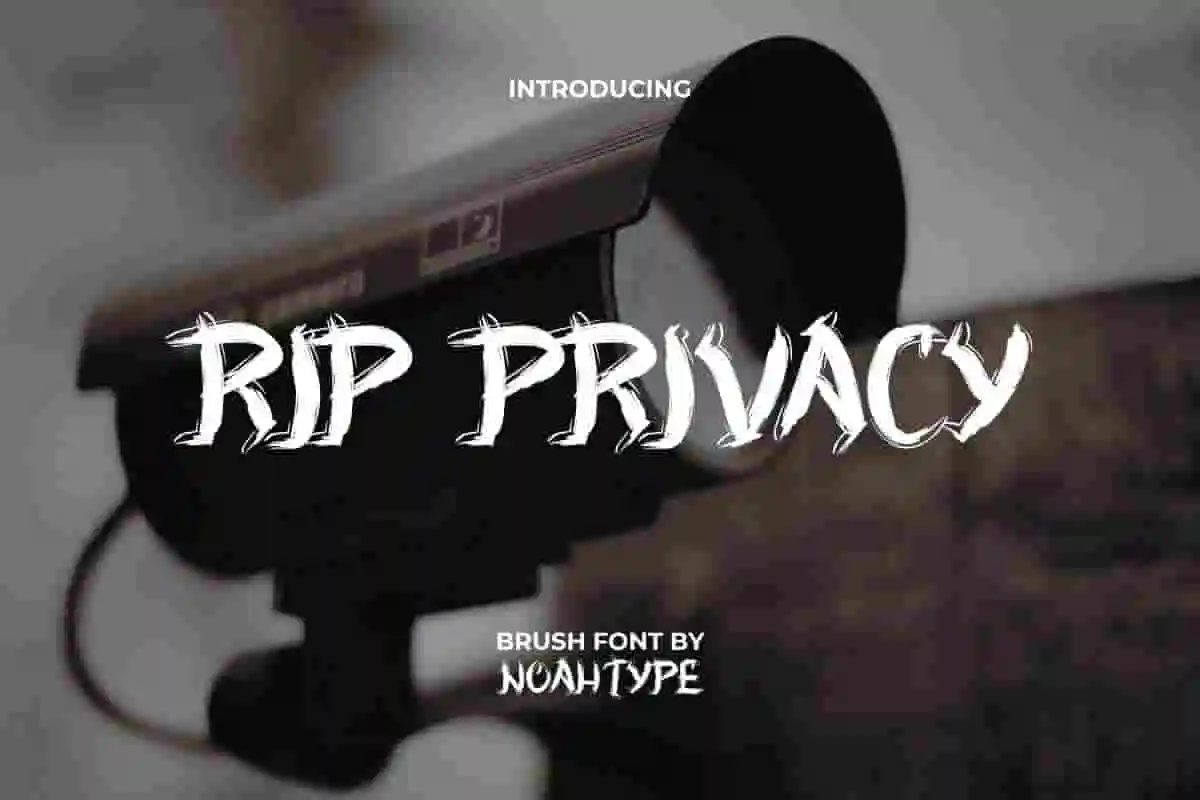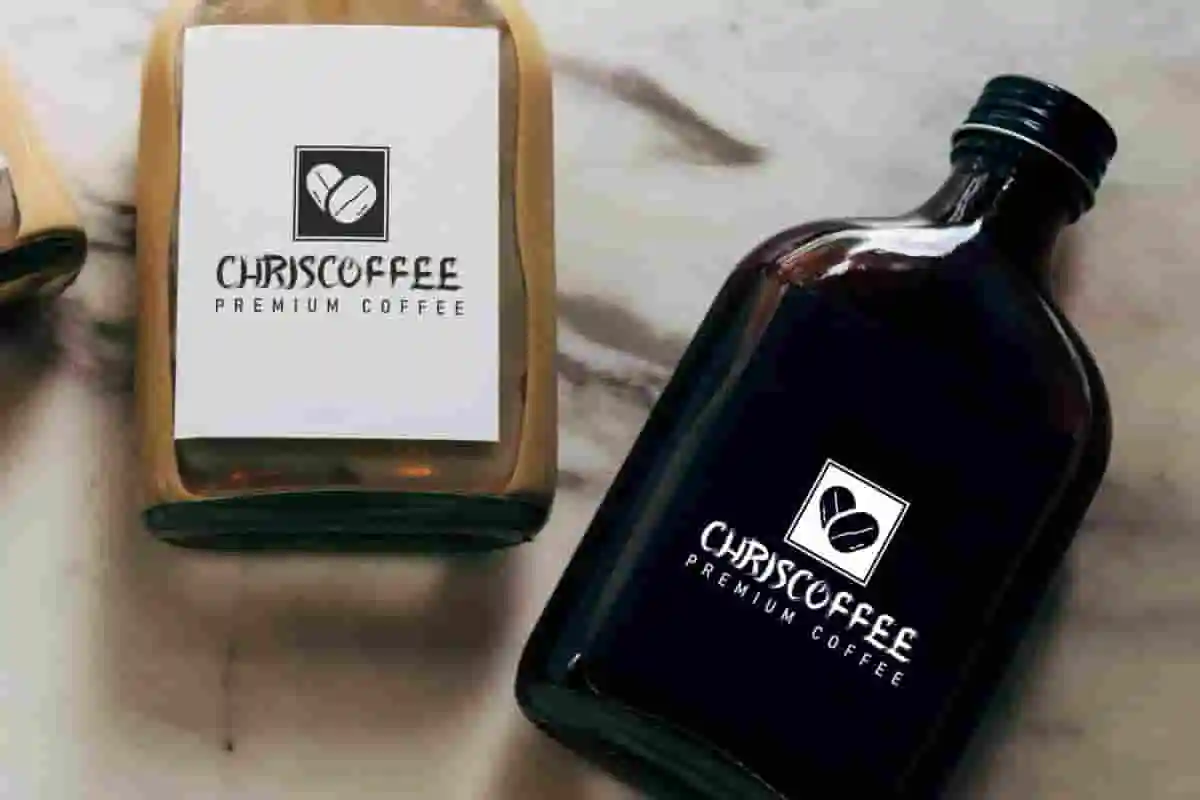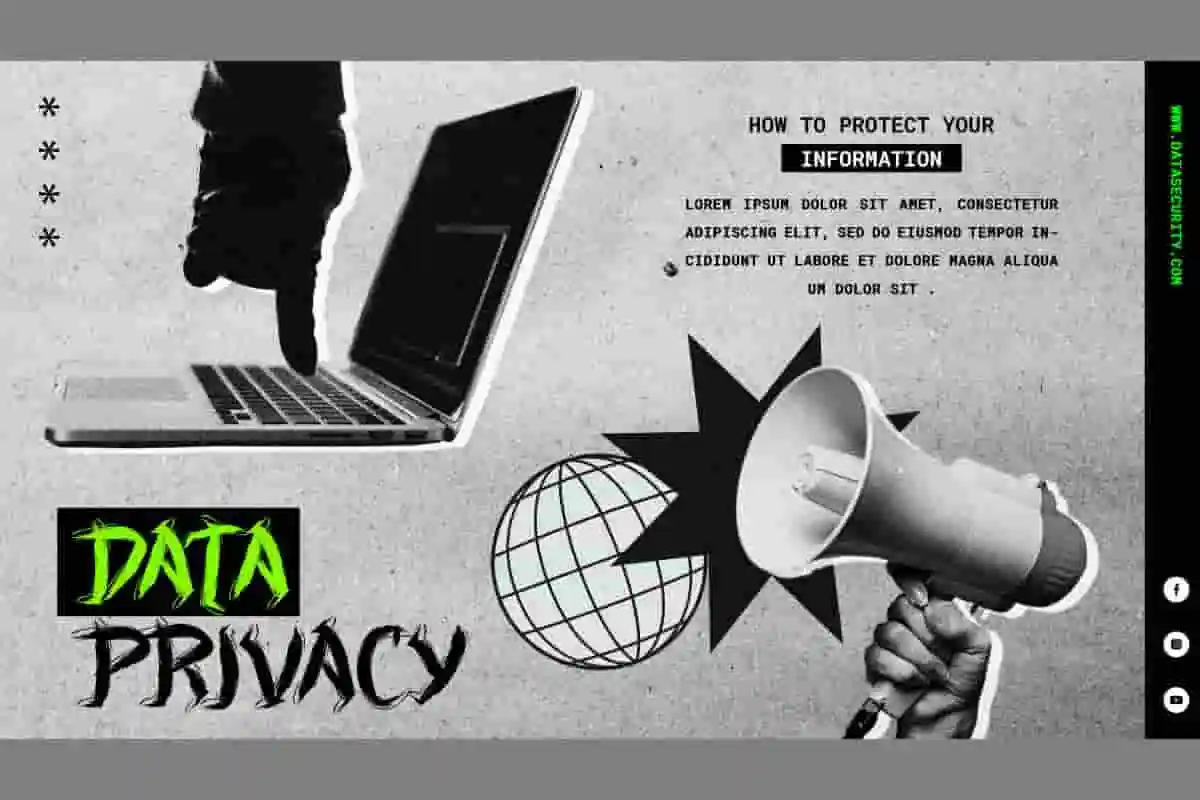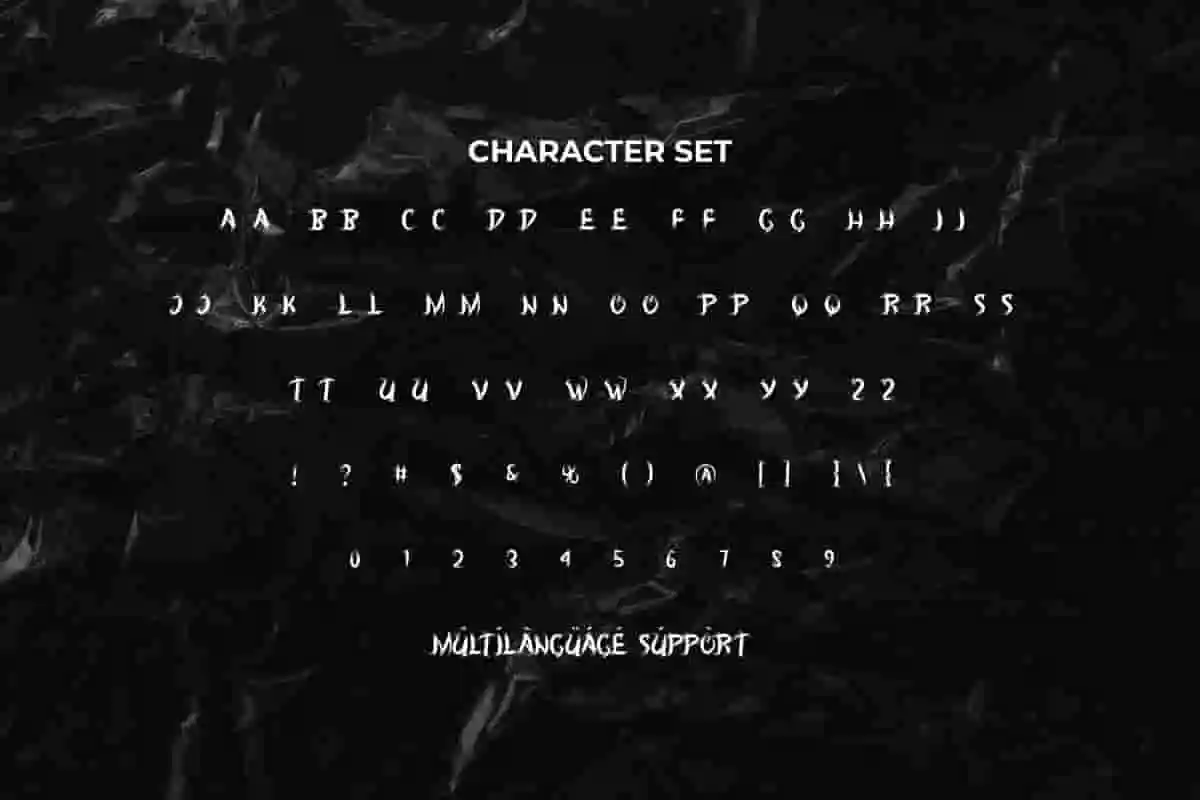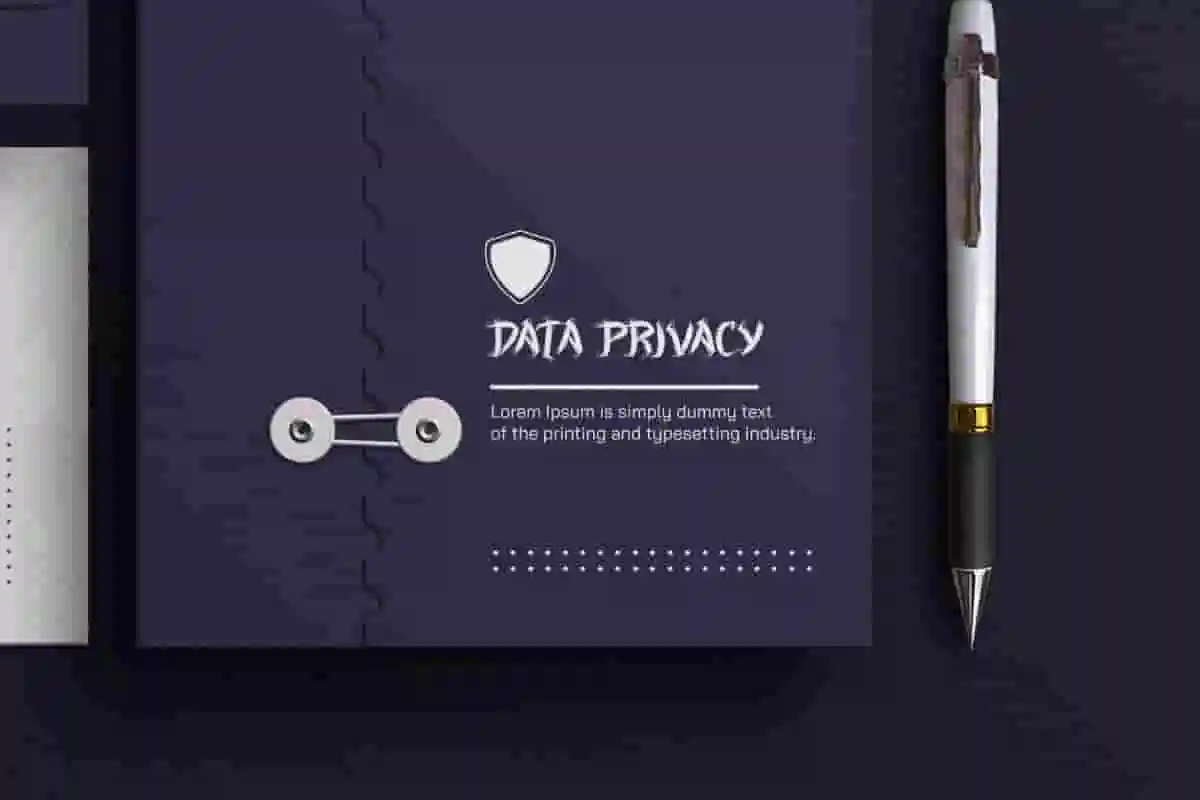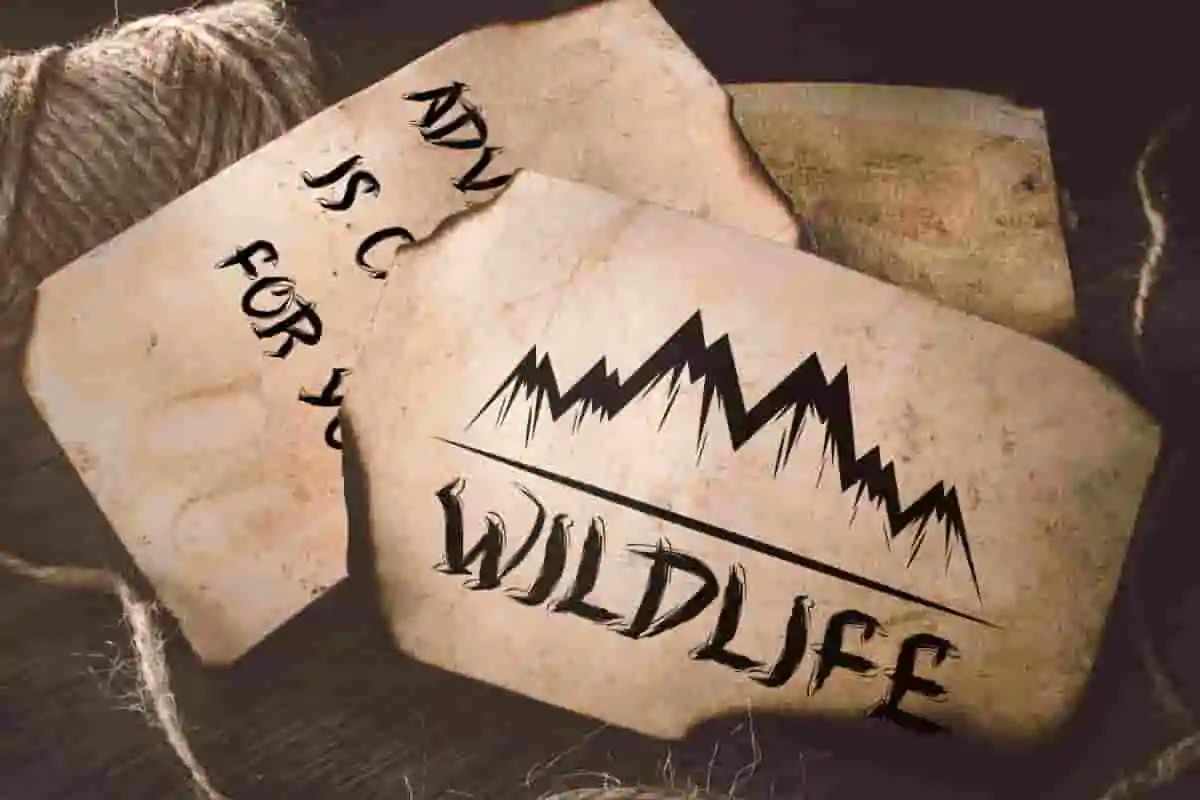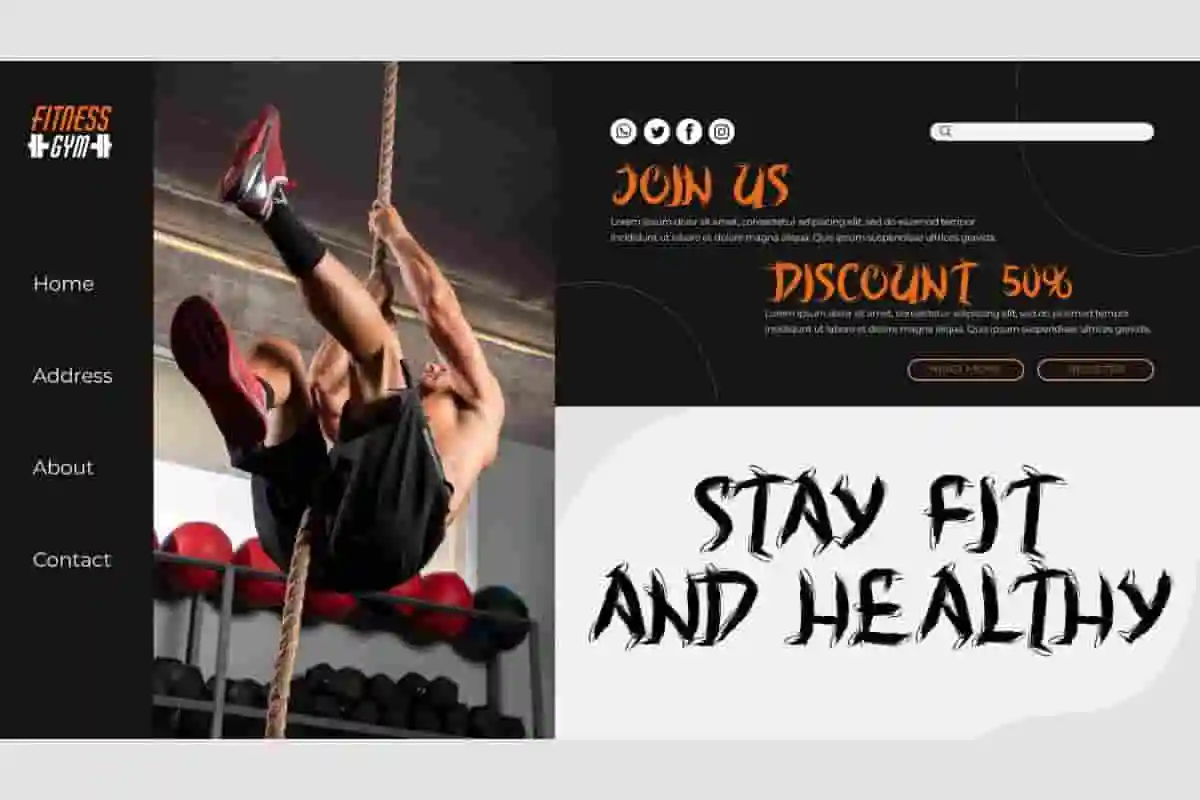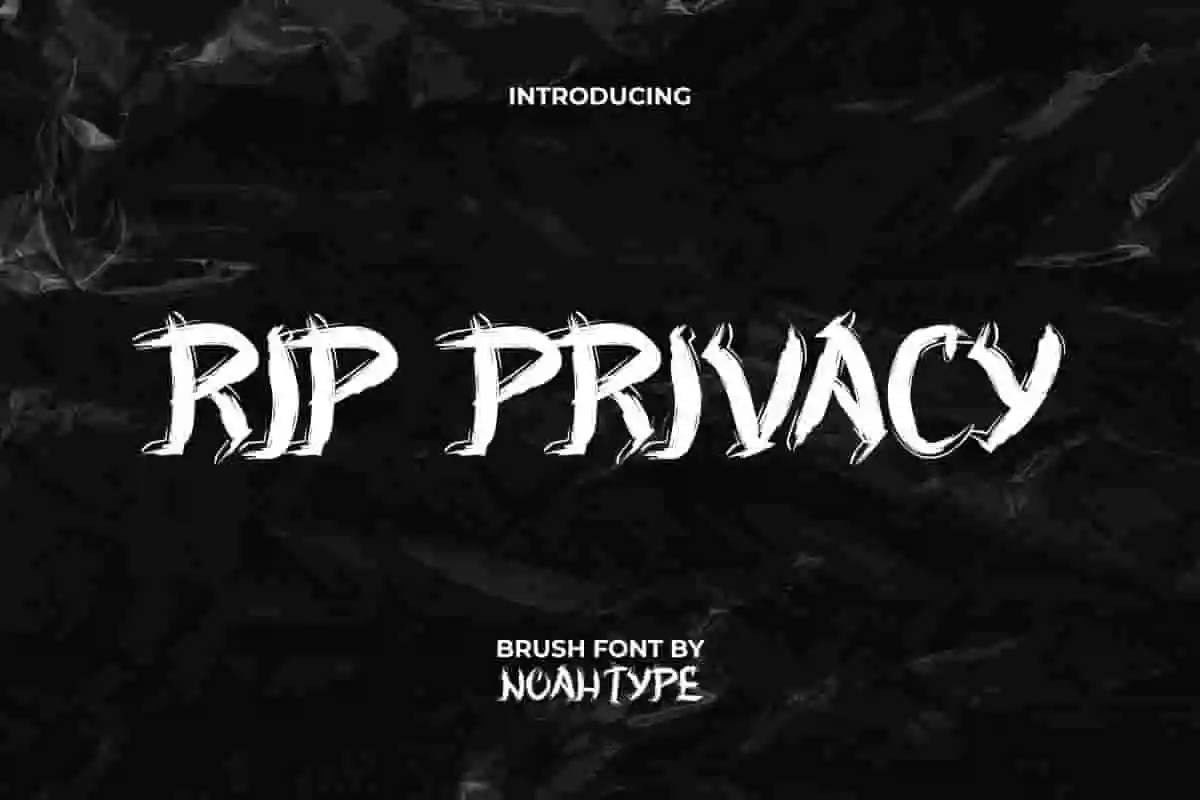
RIP Privacy Font is a metal grunge brush display font with mysterious vibes. This font is made with a messy brush texture and is still easy to read. This brush font is for anyone who are needing of special scary look on their designs. This brush font will be awesome for accessories, design graphic, fashion, game, magazine, movie, sport, photography, writer, and more!
RIP Privacy Font includes full set of ALL CAPS Basic Characters, Numerals and Punctuation. The characters of this font are perfectly make horror look that add more scary and aesthetic fonts to perfect your extraordinary project. RIP Privacy Font will be awesome for business card, catalog, custom design, invitation, poster, product packaging, quote, wallpaper, website, etc.
Whether you are working on posters, apparel design, branding, packaging, or digital advertising, RIP Privacy Brush Font will instantly grab attention. Its unique texture delivers a natural, edgy appearance that stands out in both print and digital media. With uppercase, lowercase, numerals, and punctuation included, this font offers complete flexibility to enhance your creative projects with ease.